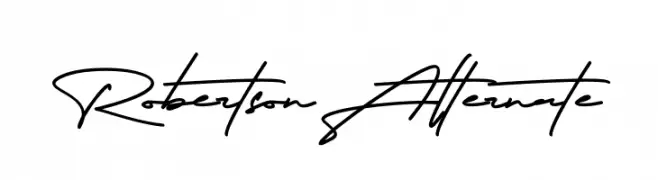
A fluid and elegant script font with a natural handwriting style.
A bold, elegant script font with flowing, connected letters.
An elegant, flowing script font with decorative flourishes.
An elegant, cursive script font with a sophisticated and flowing style.